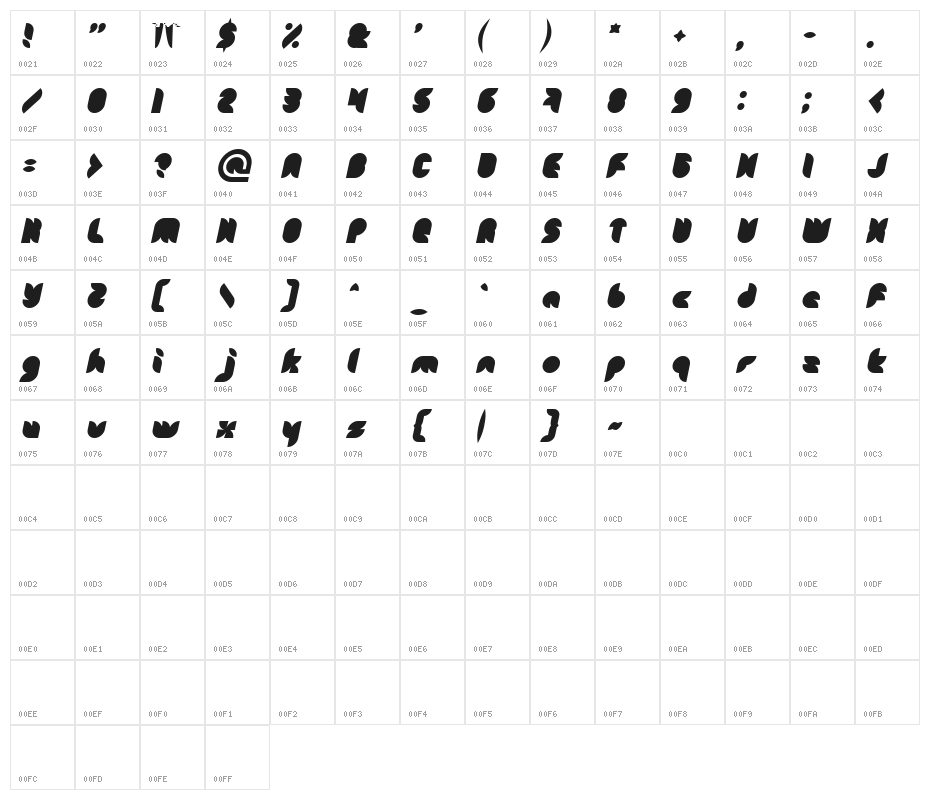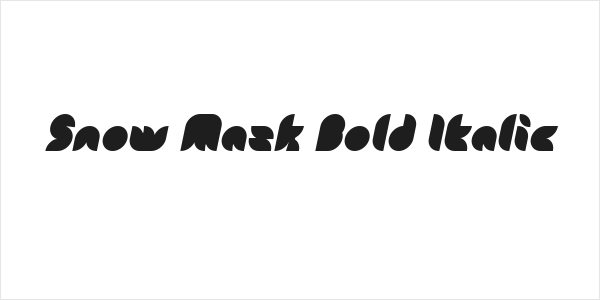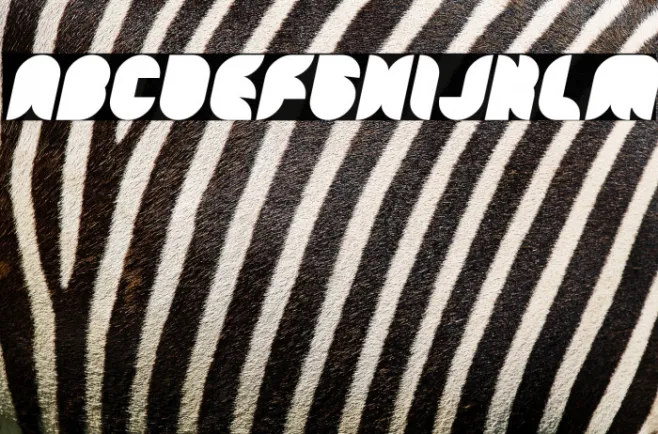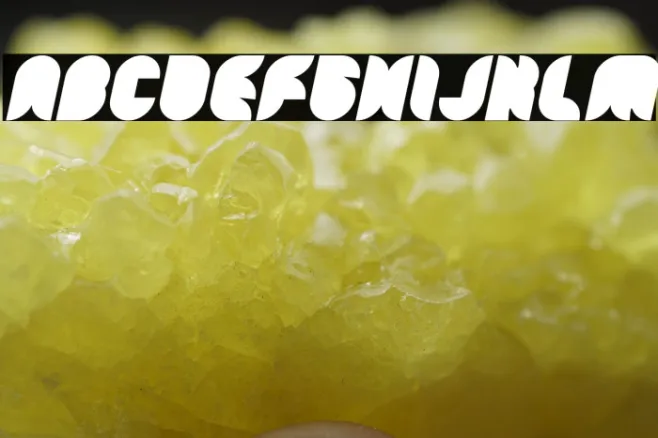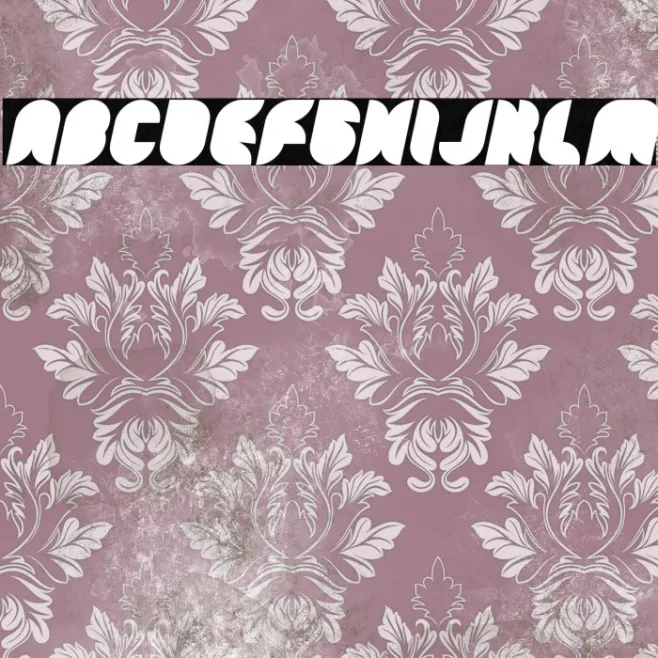
Snow Mask Bold Italic Font
Snow Mask Bold Italic Description
This font features a bold and italicized style with a unique, playful design. The characters are heavily stylized with thick, rounded strokes that create a sense of movement and energy. The letters have a distinct, almost whimsical appearance, with exaggerated curves and angles that give them a dynamic look. The font maintains a consistent weight throughout, providing a cohesive and unified appearance. The spacing between characters is tight, enhancing the boldness and impact of the text. This font is ideal for projects that require a strong visual presence and a touch of creativity.